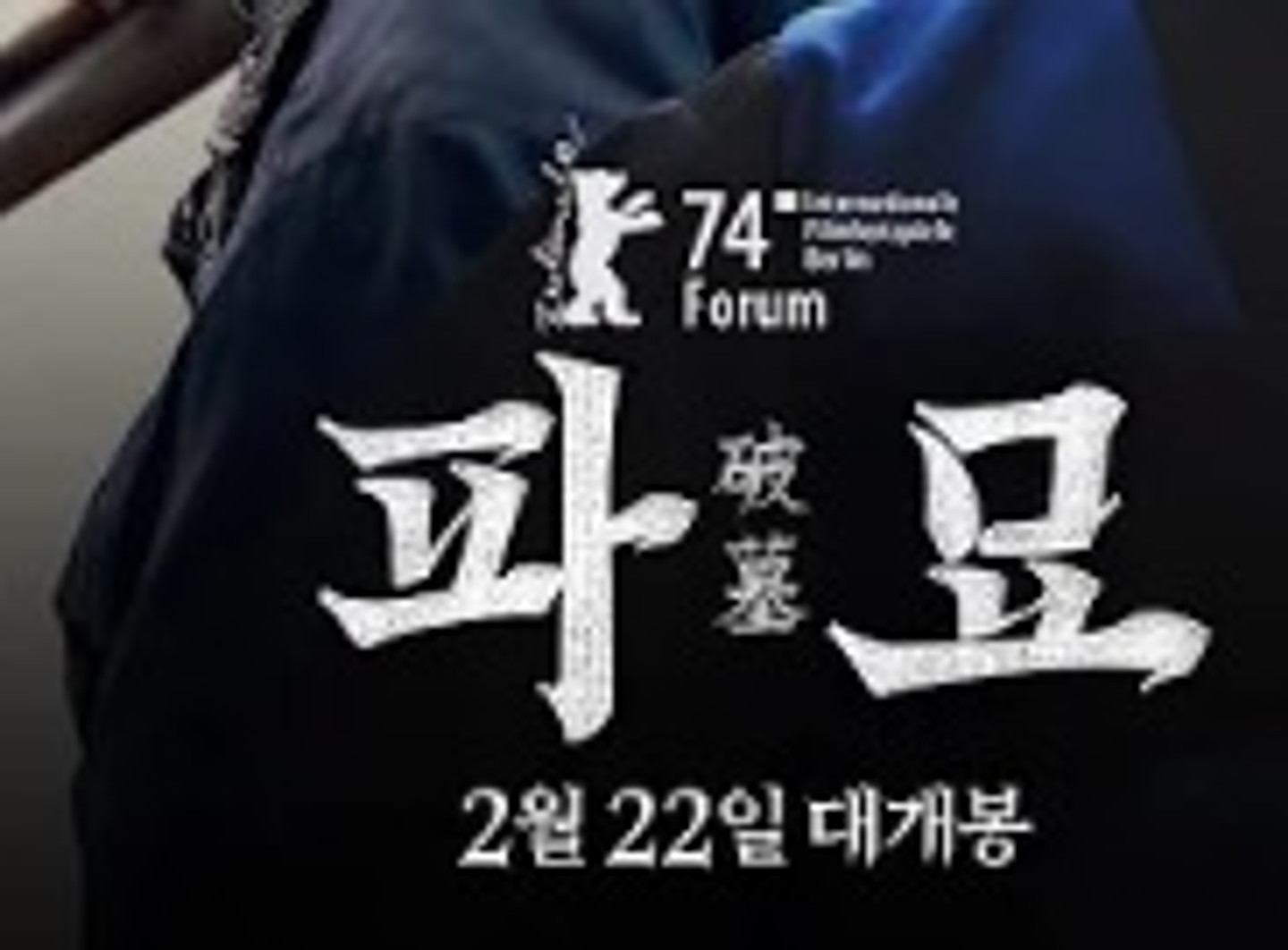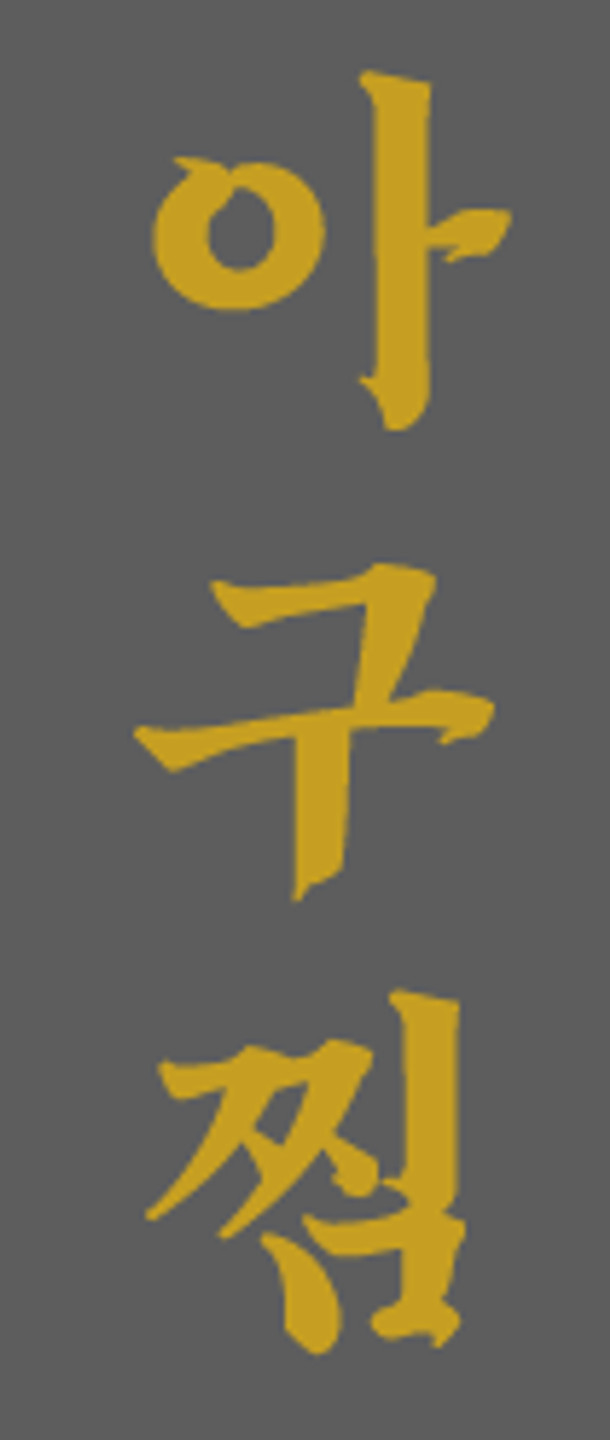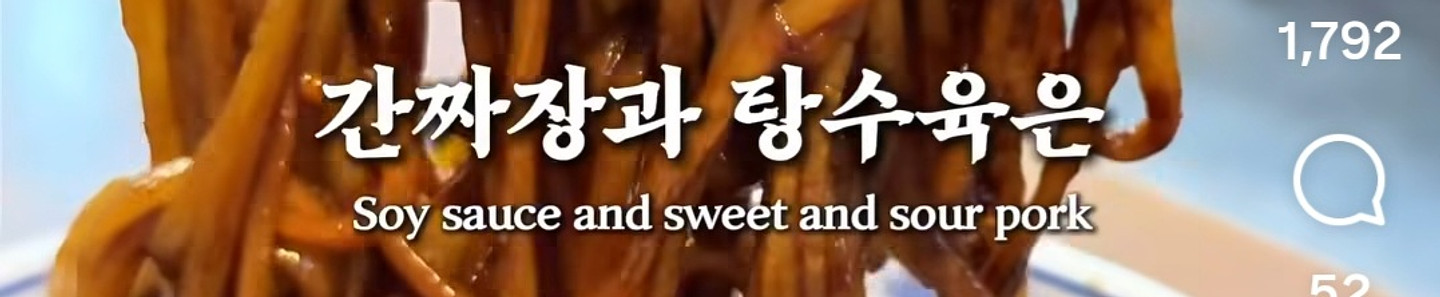
김좌진장군체
Kim Jwa-jin General
Created by Korea Seven Co., Ltd.
Type Classical
In October 2020, to commemorate the 100th anniversary of the Battle of Cheongsanri and the 574th anniversary of Hangul Day, we introduce the industry's first independent typeface and the nation's first "Kim Jwa-jin General" typeface.